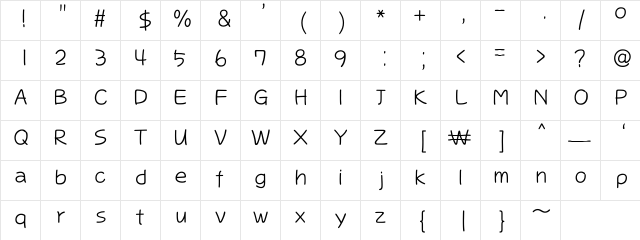
MDEasop Regular
| Foundry | MorrisDesign |
| Designer | MorrisDesign |
Design Context for MDEasop Typeface
MDEasop offers clean, dependable letterforms without strong stylistic allegiance, making it a practical choice for designers who need flexibility.
Pro Tip: Pair MDEasop with a font of contrasting weight or personality to build a more expressive typographic hierarchy.